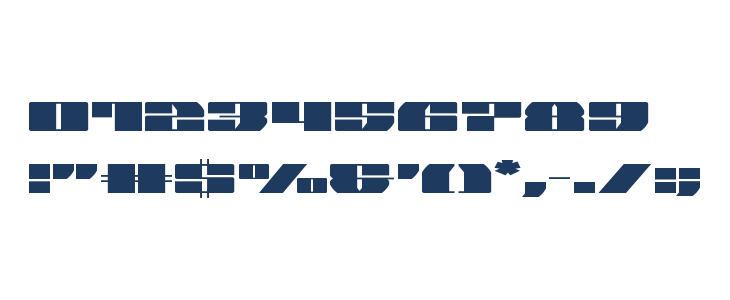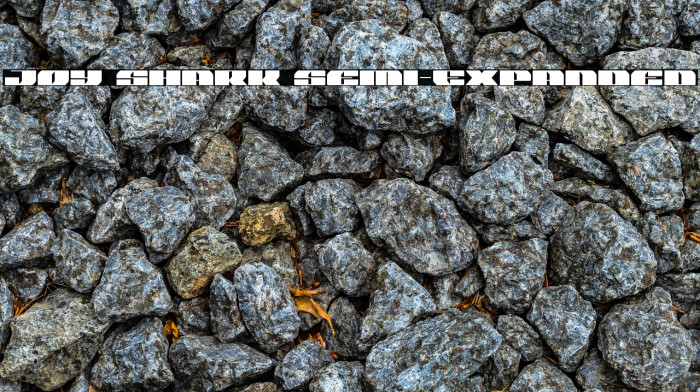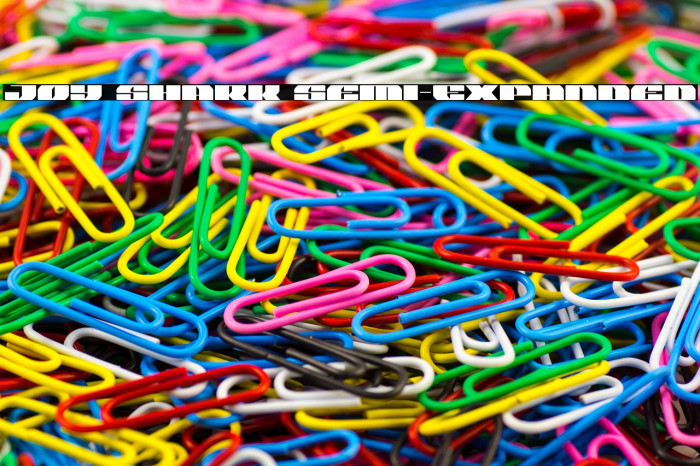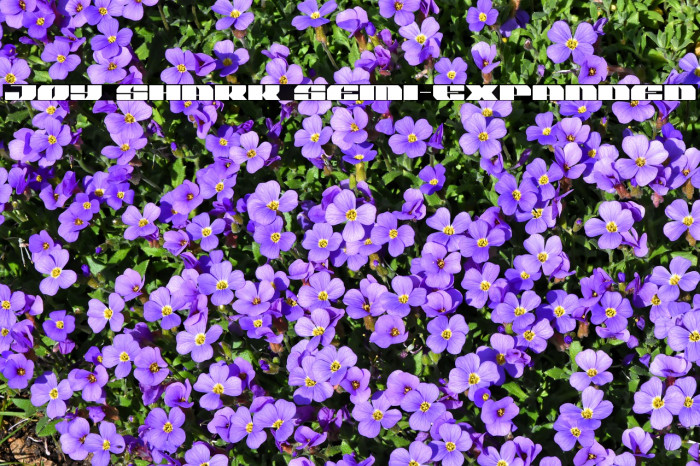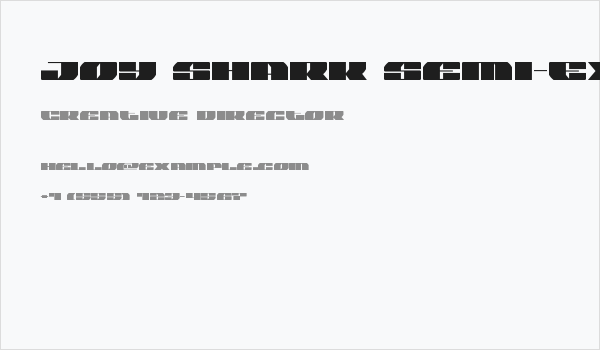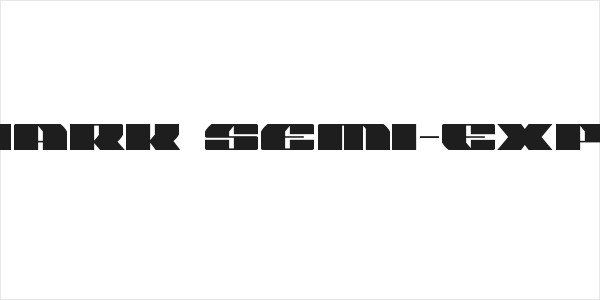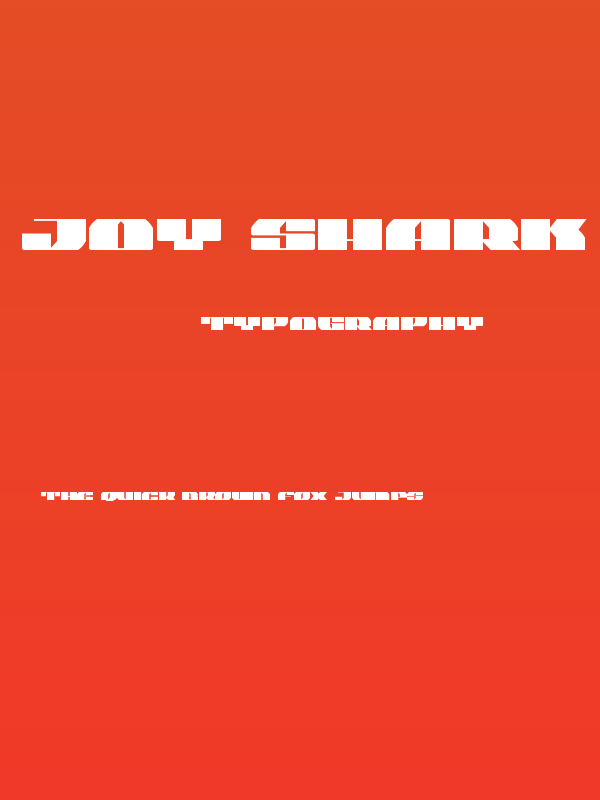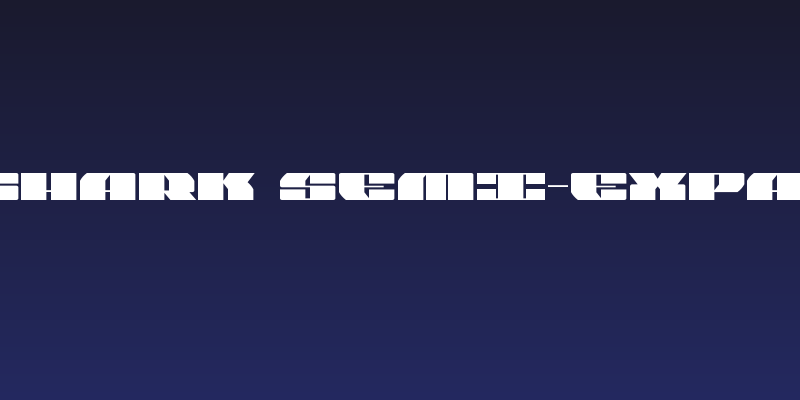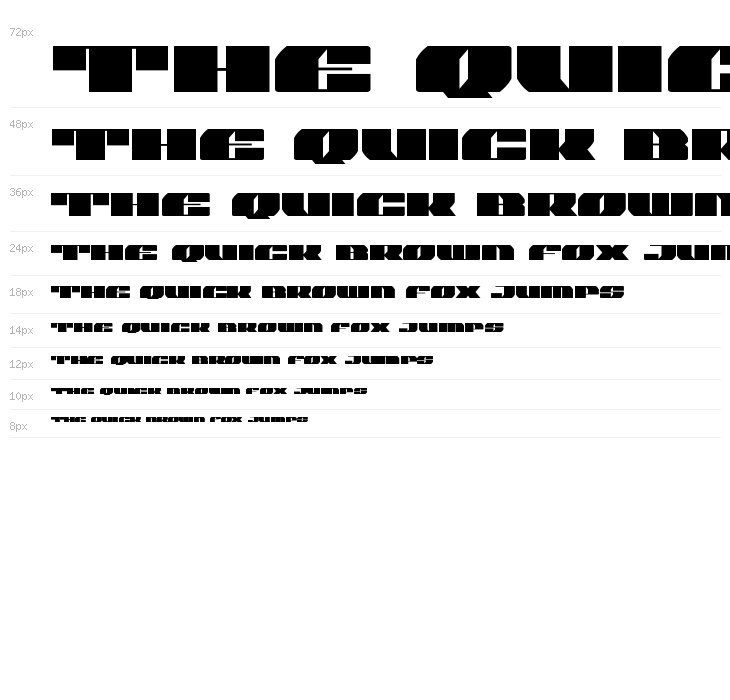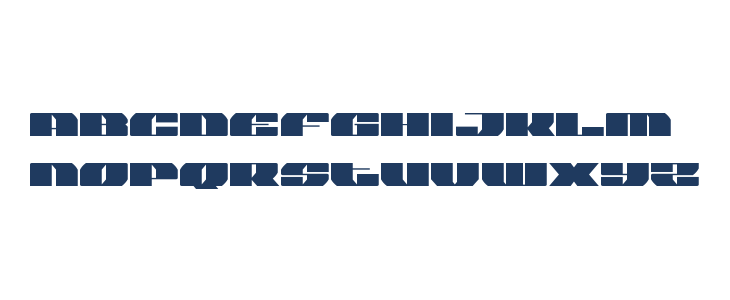
Joy Shark Semi-Expanded Font
Joy Shark Semi-Expanded Description
This font exhibits a bold and striking design, characterized by its geometric and blocky letterforms. The uppercase and lowercase letters maintain a consistent width, creating a uniform appearance. The font features sharp angles and straight lines, giving it a modern and industrial feel. The characters are semi-expanded, providing a sense of stability and strength. The numbers and special characters follow the same design principles, ensuring coherence across all glyphs. This font is ideal for making a strong visual impact, with its high contrast and distinctive style.
| Proposed Projects | Ideal for branding, posters, headlines, and any project requiring a strong visual impact. |